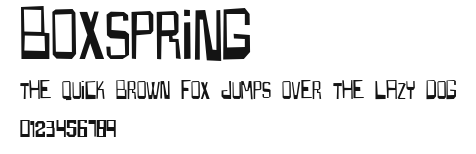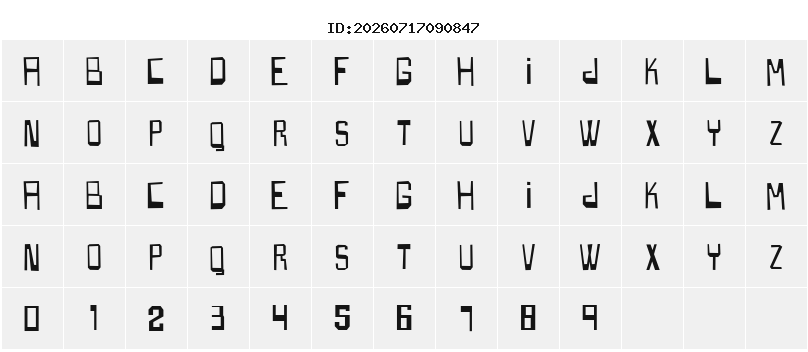
Boxspring Preview
• Font Name: Boxspring
• Full Font Name: BoxspringA
• PostScript Name: BoxspringA
• Copyright: Copr.1995 T-26. Designed by Carlos Segura and Scott Smith.
About Boxspring.ttf
Boxspring.ttf is a modern, elegant sans-serif font designed for ultimate readability and visual harmony. Perfect for branding, headlines, web design, and print materials.